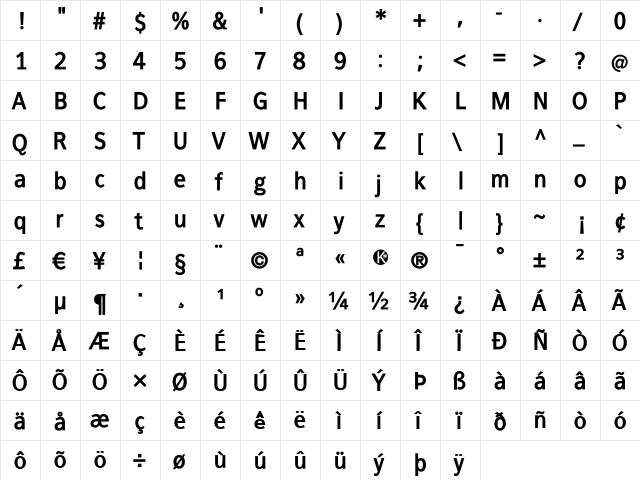
FrancophilSans Bold Font Preview
FrancophilSans Bold
Design Context for FrancophilSans Typeface
FrancophilSans takes a measured approach to typography — its balanced proportions and neutral character make it a reliable workhorse for both digital and print work. Its bold stroke weight gives it real presence on the page.